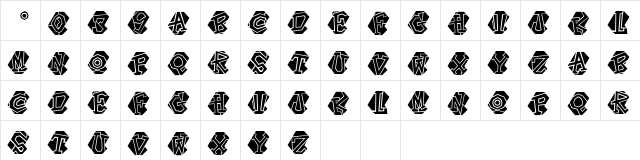
Portastat Regular
Design Context for Portastat Typeface
Portastat is a composed and adaptable typeface that performs quietly and consistently across a wide range of design contexts.